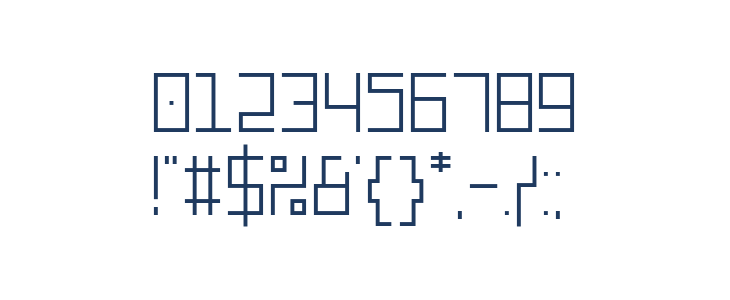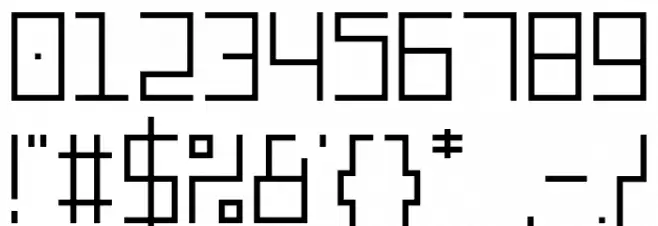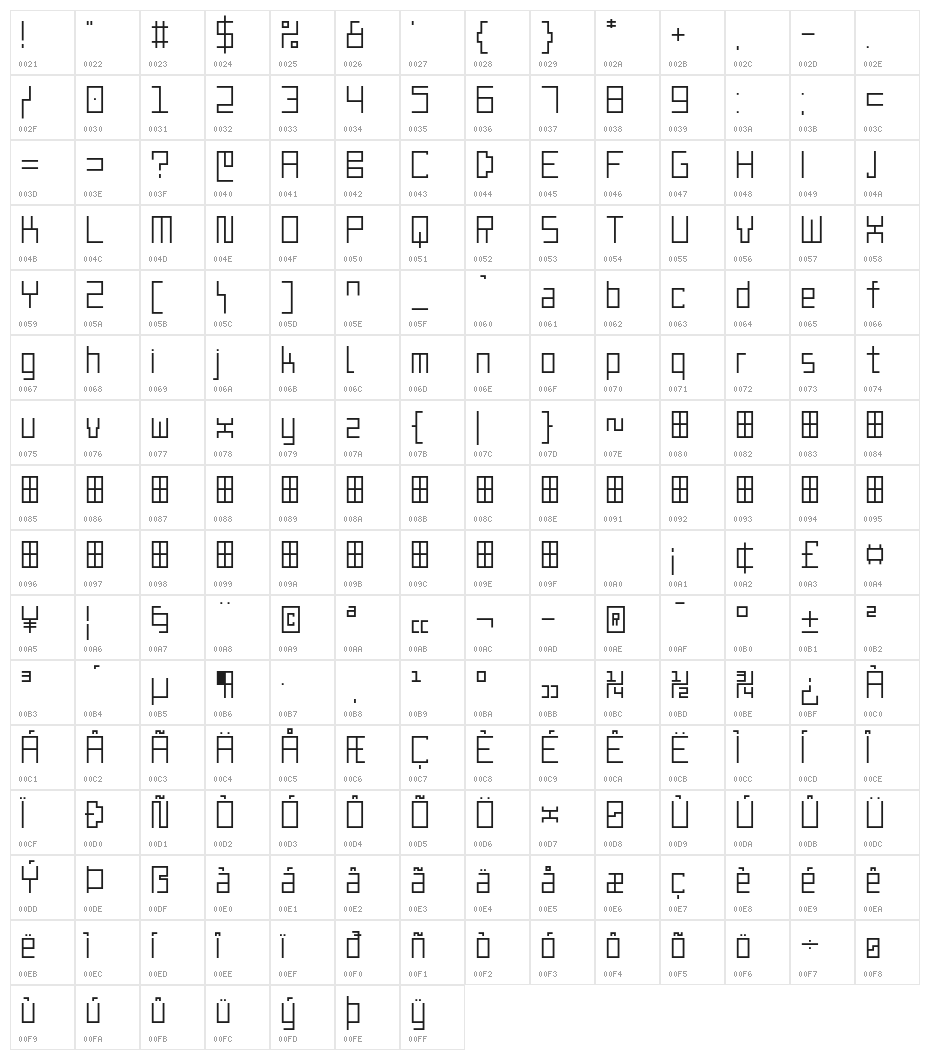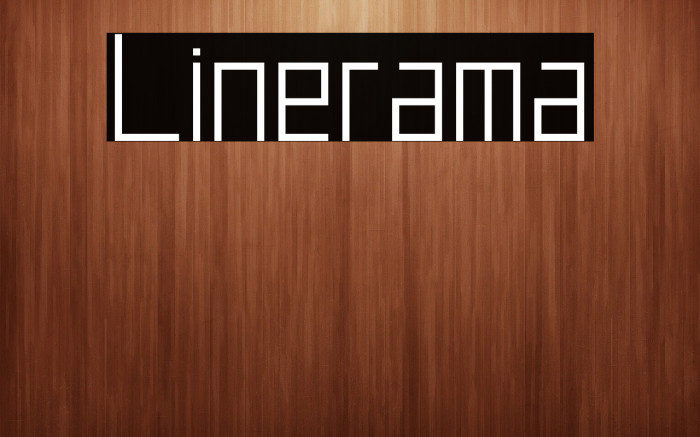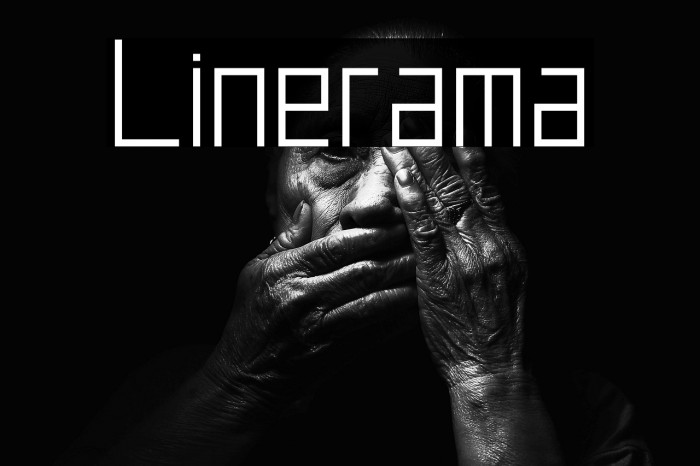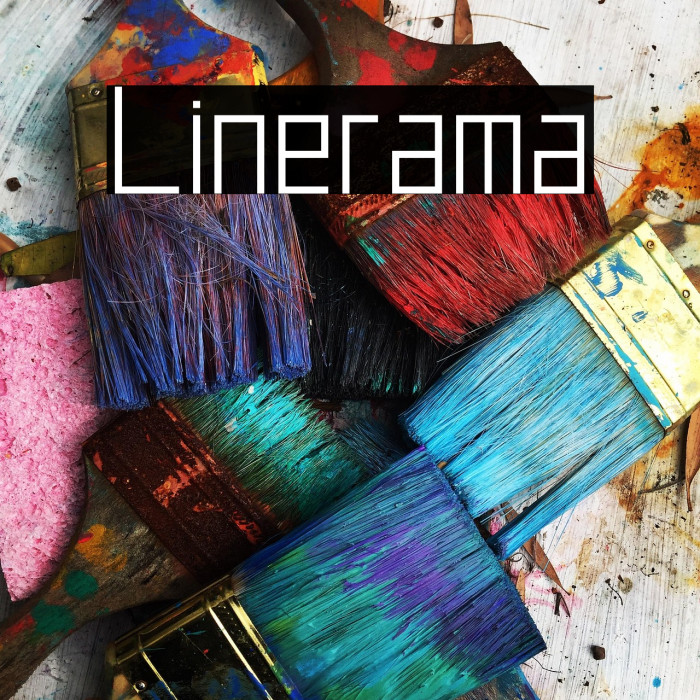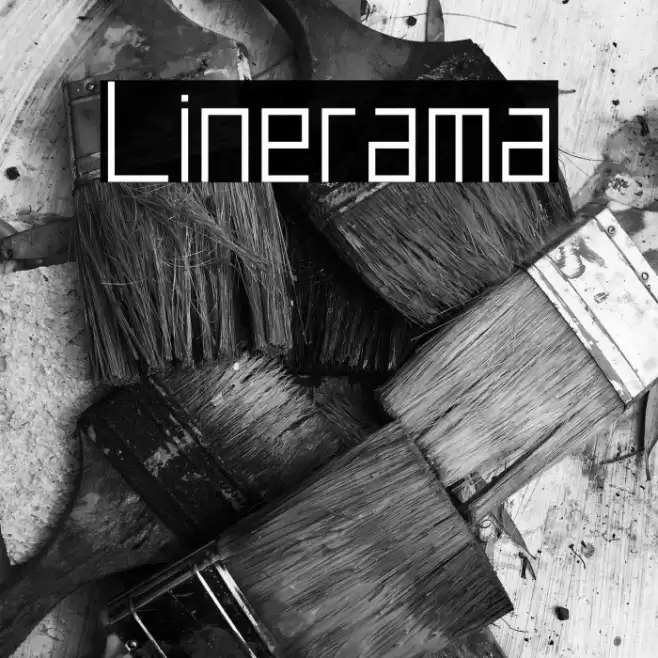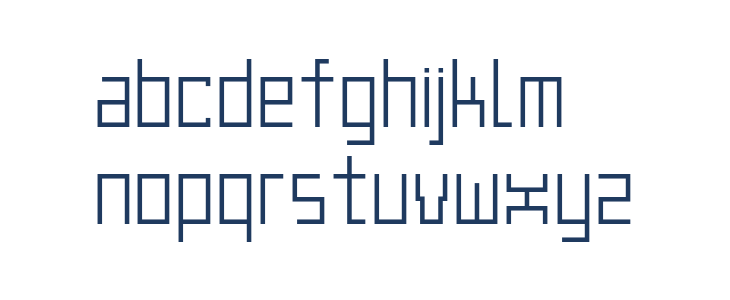
Linerama Font
Linerama Description
This font features a geometric, grid-like structure with a modern and minimalistic aesthetic. Each character is composed of straight lines and right angles, creating a digital or futuristic appearance. The uniform line weight across all characters contributes to a clean and consistent look. The uppercase and lowercase letters maintain a similar height, enhancing the uniformity. The numerals and special characters follow the same design principles, ensuring coherence throughout the typeface. This font is highly legible and suitable for digital displays or any project requiring a contemporary, tech-inspired style.
| Use Case | Headlines, Logos, Digital displays |
| Proposed Projects | Ideal for tech branding, digital interfaces, modern posters, and futuristic designs. |